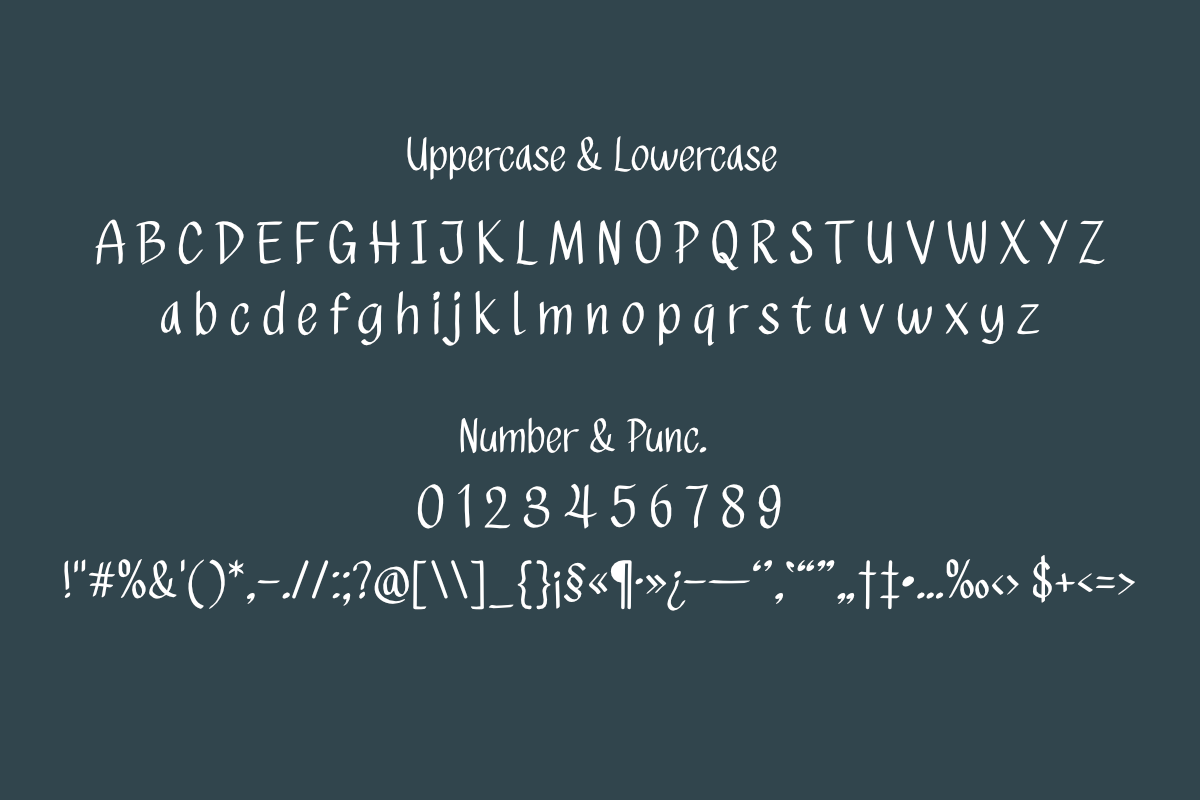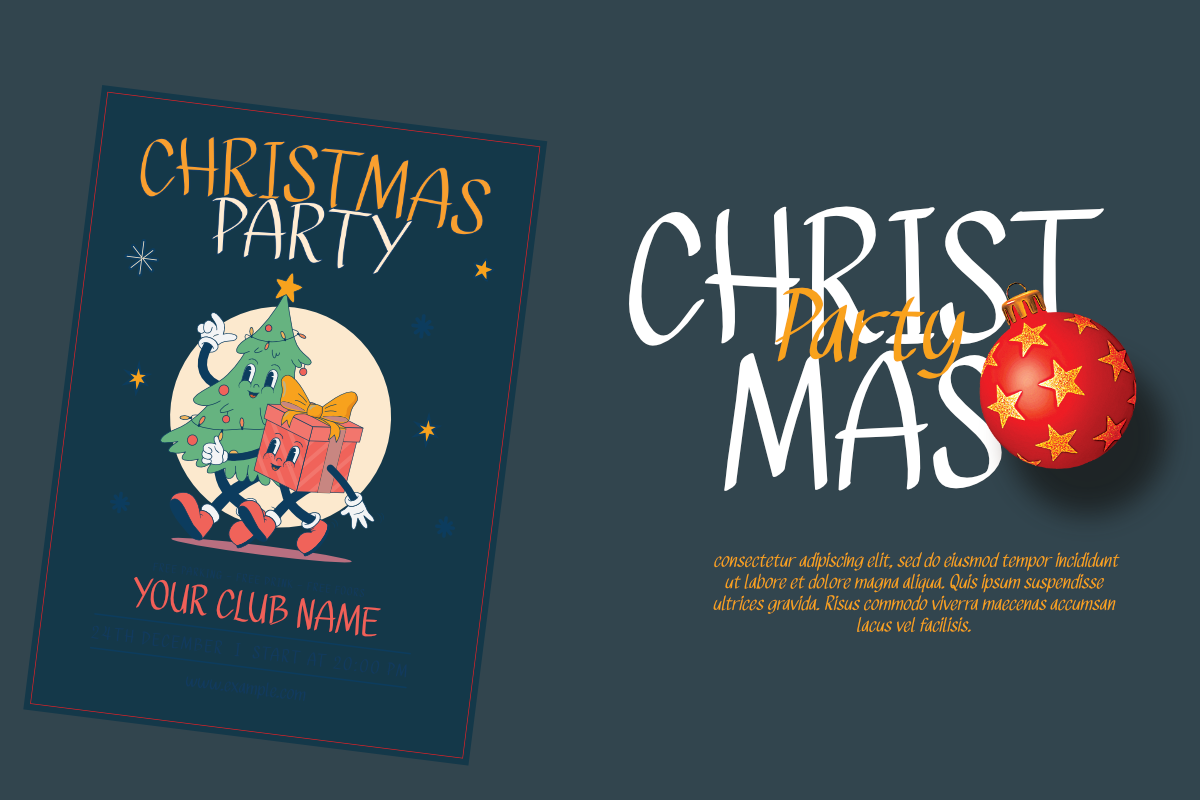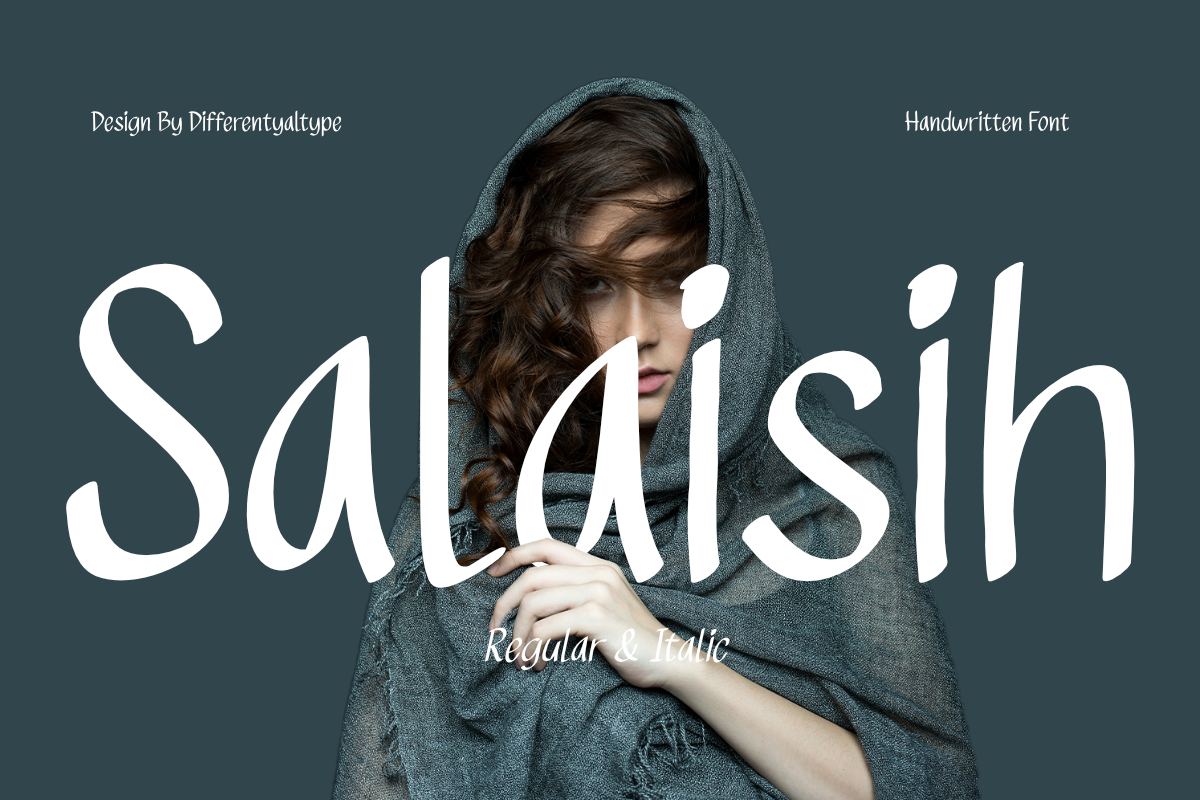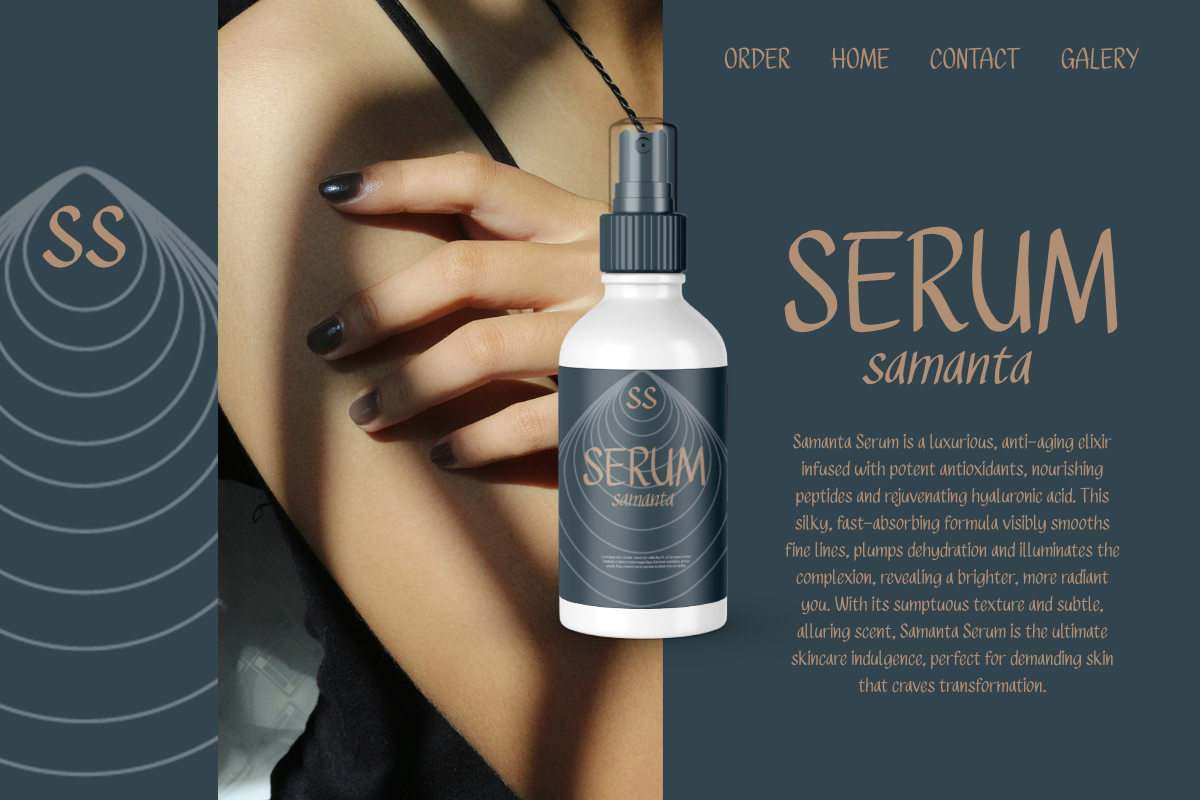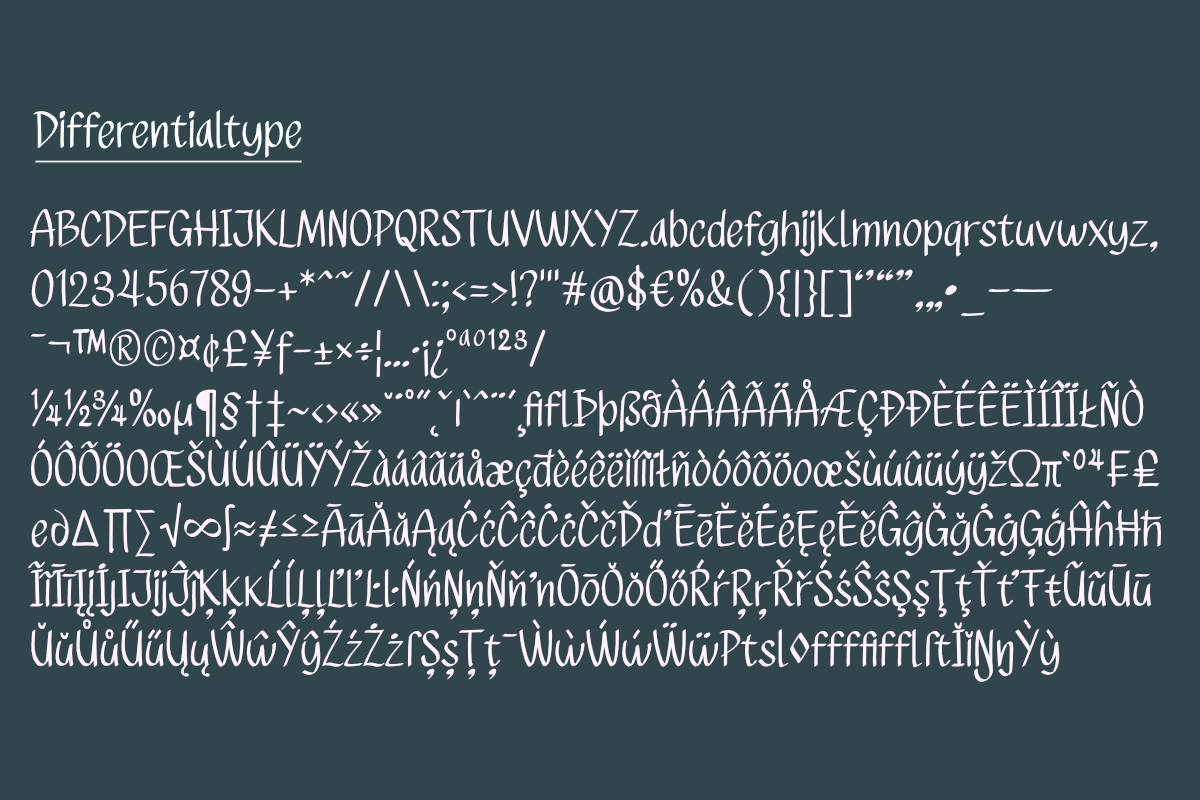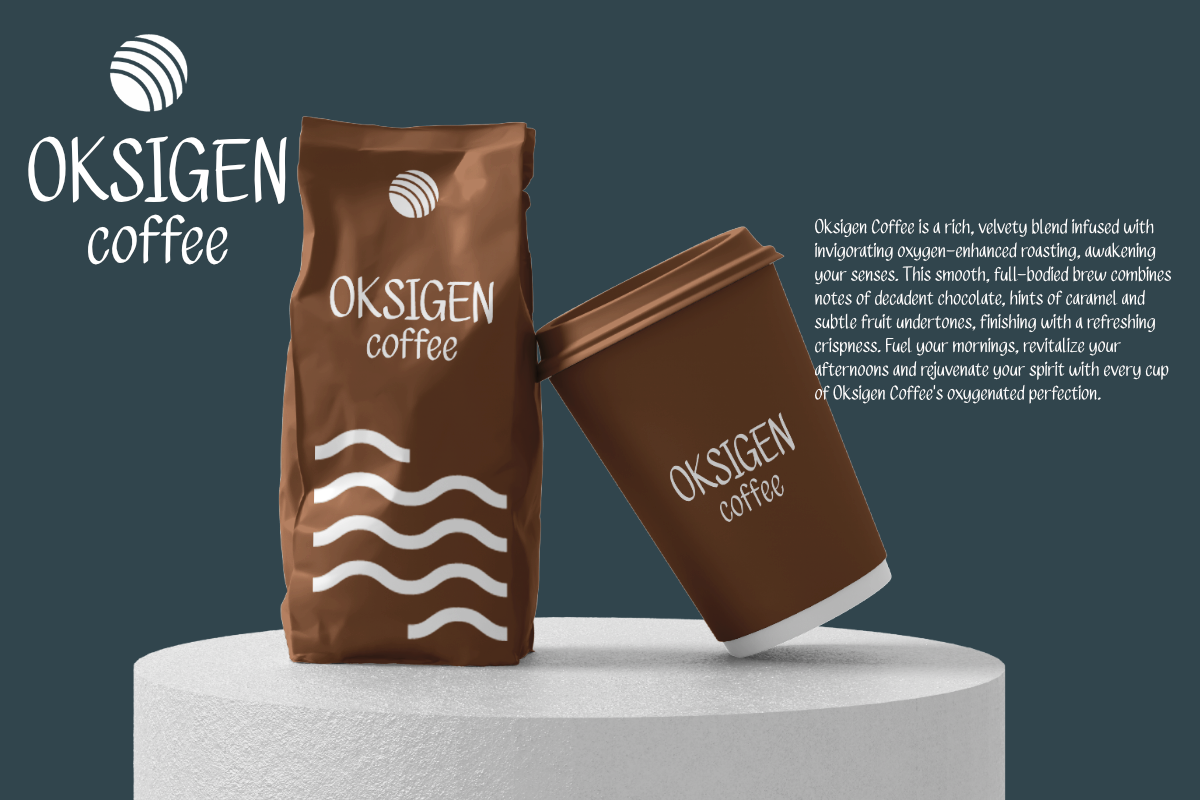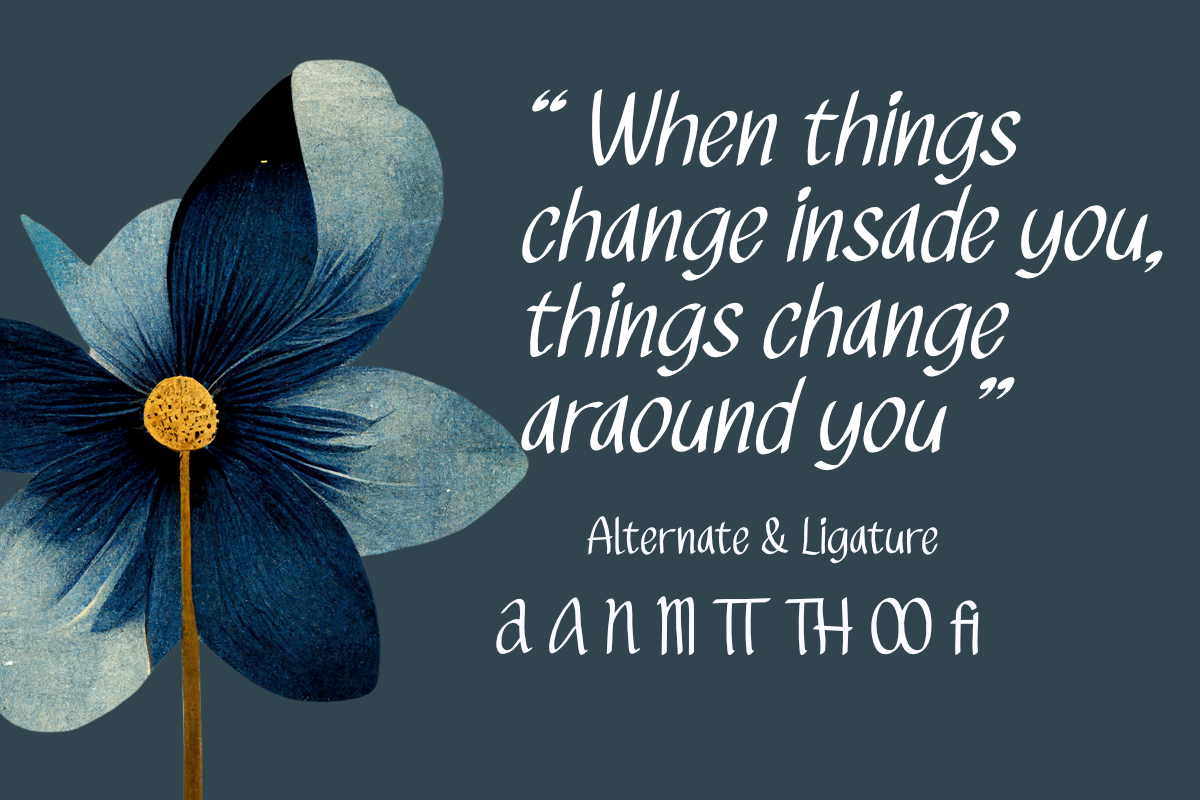
Salaisih - Handwritten Font
Welcome to the world of Salaisih, a whimsical handwritten font that effortlessly delivers a laid-back and enjoyable ambiance. Salaisih is perfect for a vast array of uses, infusing a touch of charm into any design it graces, from eye-catching headlines to upbeat children's literature, festive birthday invitations, and distinct product branding. With an air of informality and fun, Salaisih is more than a font - it's an essential part of your creative toolkit. Imbue your designs with distinctive personality using Salaisih, and let its playful spirit come alive in your creations.